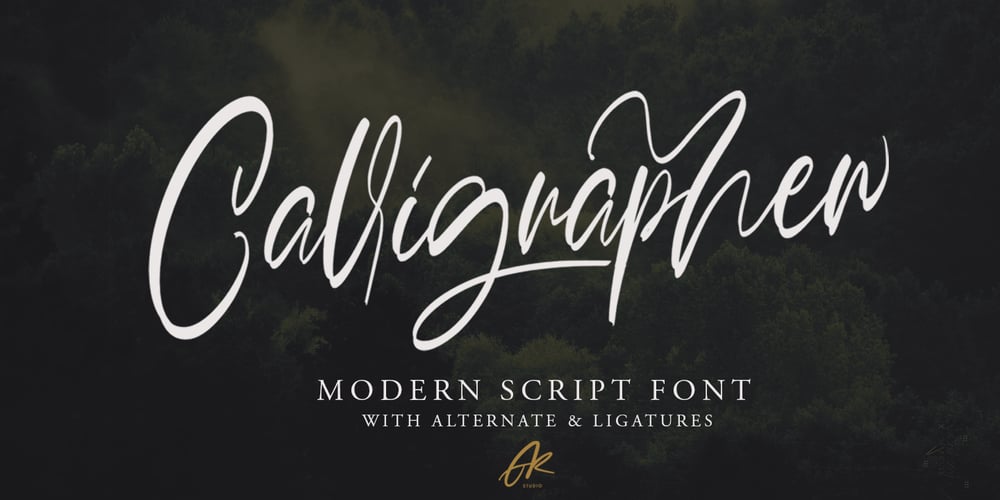
Calligrapher Font Family was designed by Asep Rendi and published by Arendxstudio. Calligrapher contains 1 styles and family package options. Calligrapher is an elegant font and has its own distinctive style, so it looks luxurious in every character. Calligrapher comes with OpenType features such as stylistic alternates, stylistic sets & ligatures good for logotypes, posters, badges, book covers, t-shirt design, packaging and more.Features : • Character Set A-Z • Numerals & Punctuations (OpenType Standard) • Accents (Multilingual characters) • Ligature • Alternate • SwashThere it is! I really hope you enjoy it – comments and likes are always welcome and accepted. More importantly, don’t hesitate to send a message if you have a problem or question.